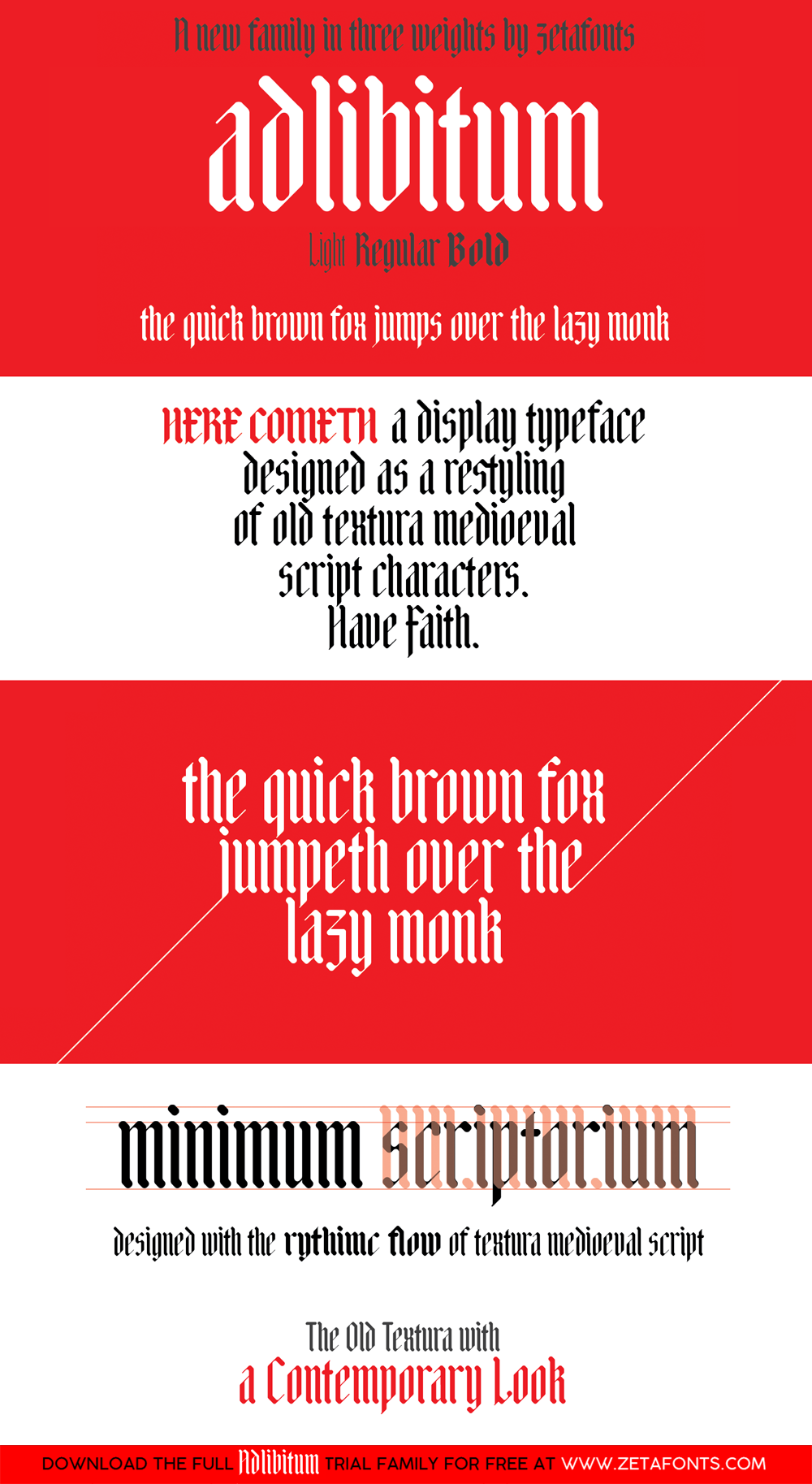
Adlibitum
Adlibitum is a modern rendition of medieval textura script. Vertical emphasis, geometric design with 45-degree angles and soft corners. Three weights, extensive European character set, ligature support.